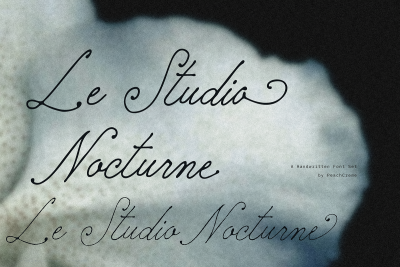
Le Studio Nocturne // Nostalgic Set Font
Le Studio Nocturne // Nostalgic Set is a professional-grade typeface designed to elevate branding, editorial, and identity projects.
Its proportions suit a wide range of uses: website headers, printed flyers, restaurant menus, annual reports, and product packaging.